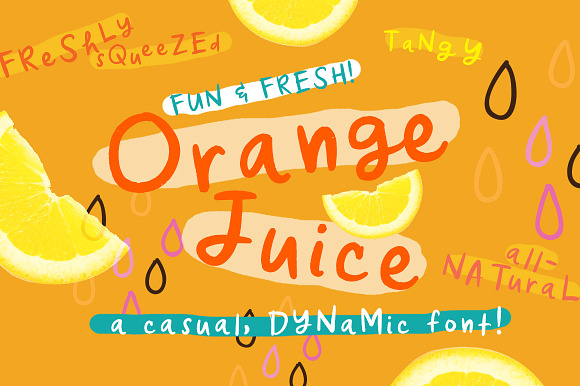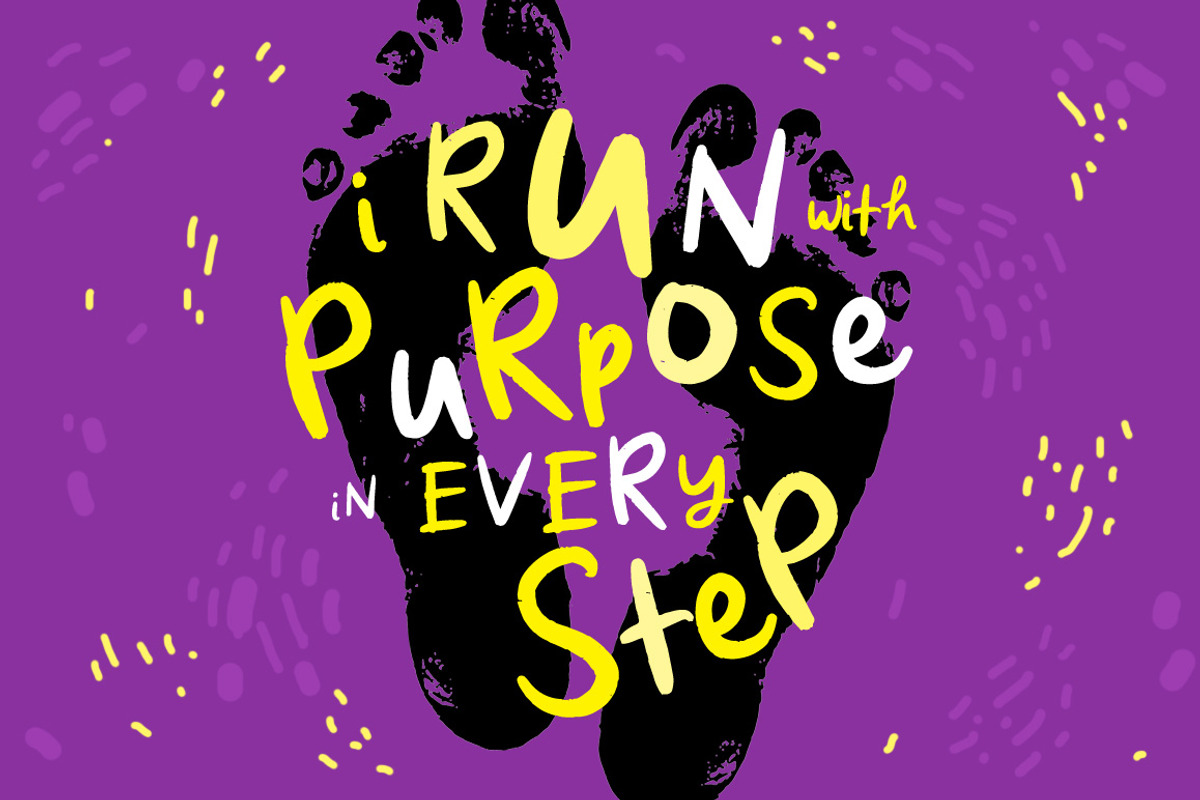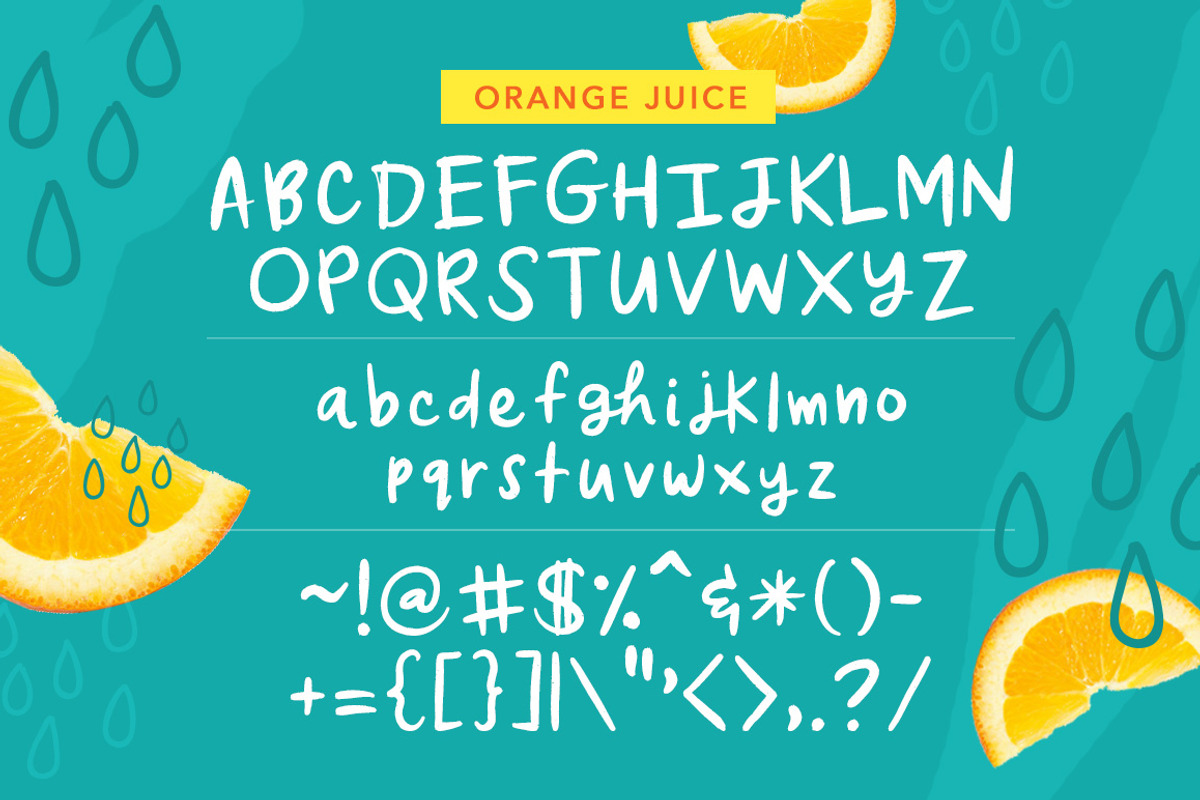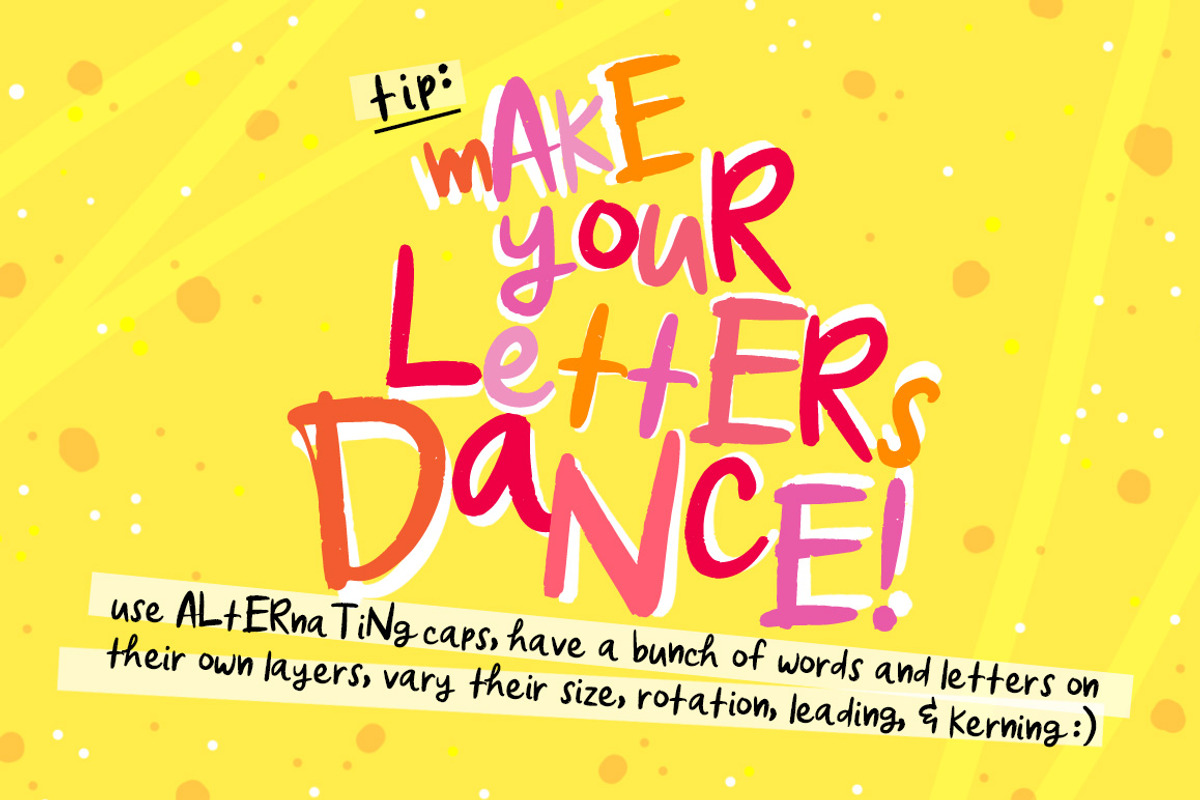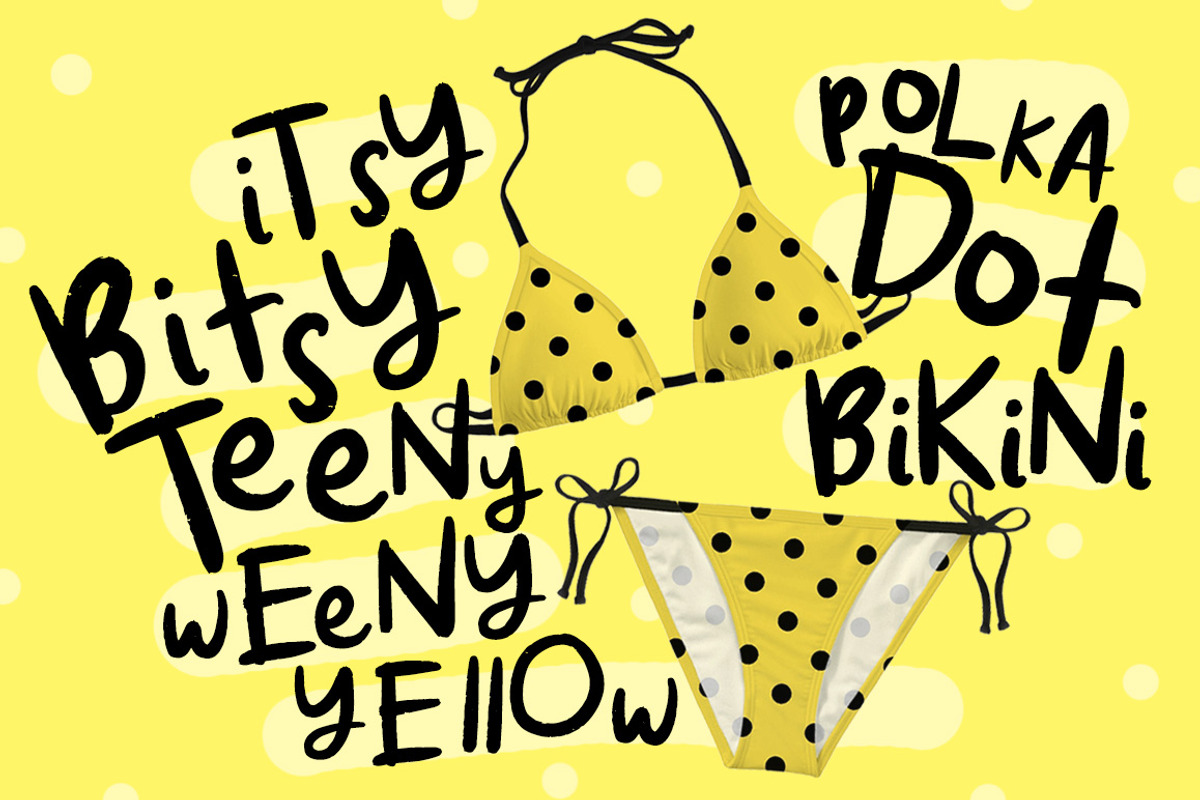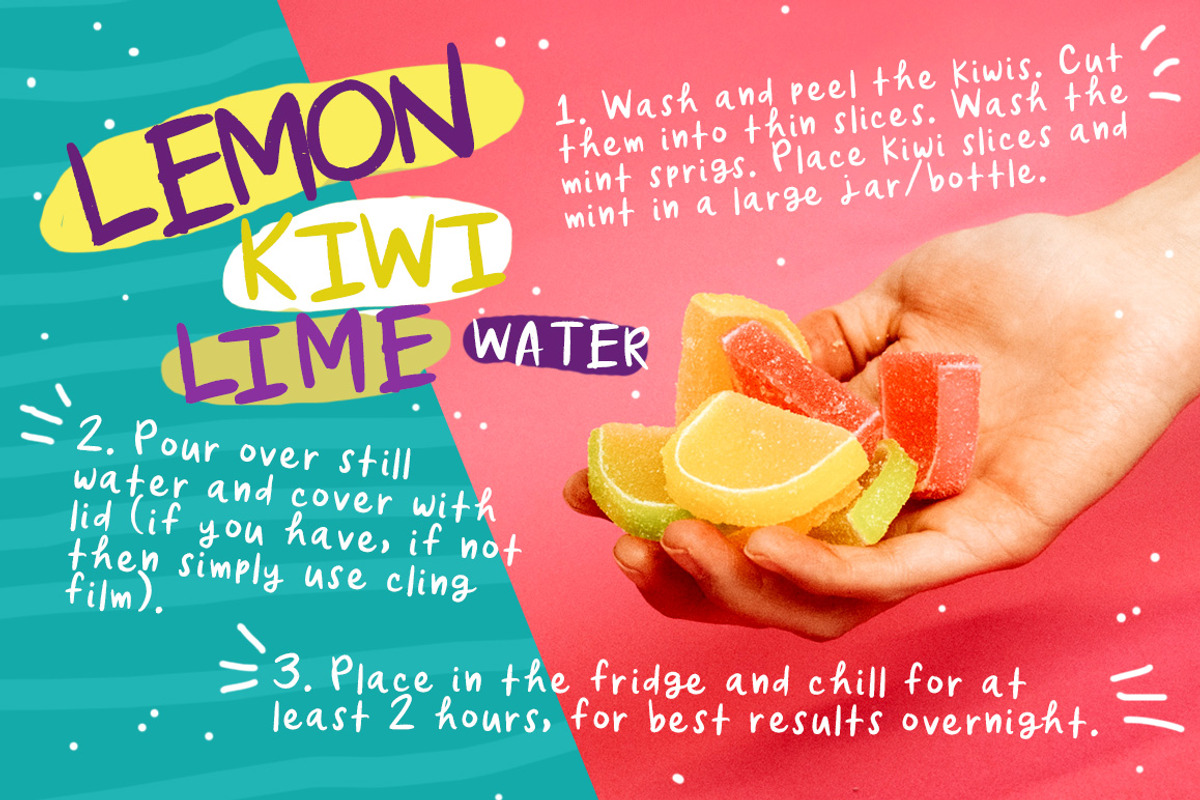
Orange Juice Font
A fun new font that's perfect for posters, magazines, food recipes, party invitations, and all other kinds of display type! Orange Juice is a vibrant and dynamic hand-drawn font that adds a youthful and energetic vibe to your design projects.
Tip: use ALtErNATinG caps for maximum effect to spice up your work!
Numerals and punctuation